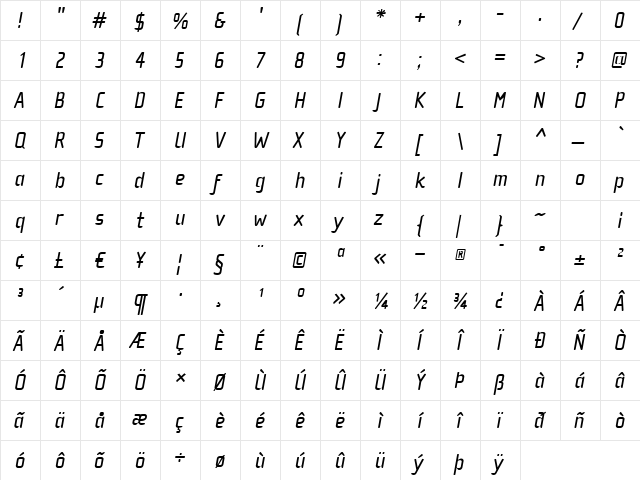
ChollaSansItalic Italic
| Foundry | Emigre |
| Designer | Sibylle Hagmann |
Design Context for ChollaSansItalic Typeface
ChollaSansItalic takes a measured approach to typography — its balanced proportions and neutral character make it a reliable workhorse for both digital and print work. The slanted form adds forward momentum and visual energy.